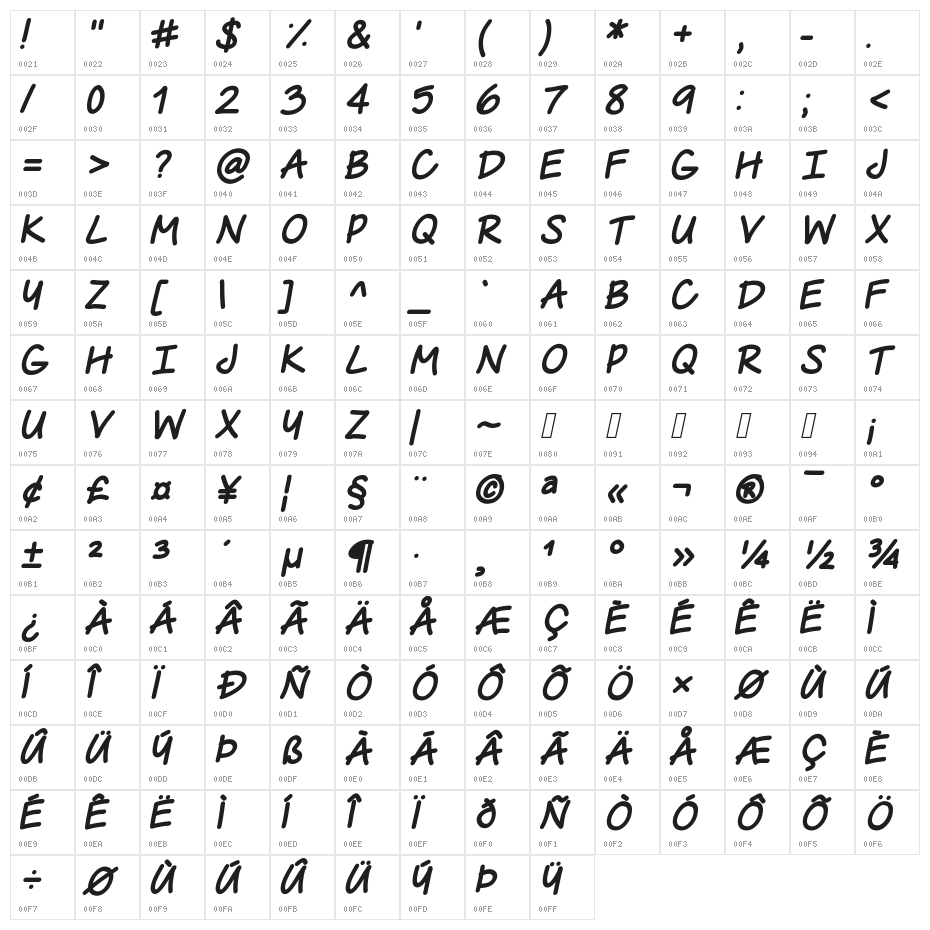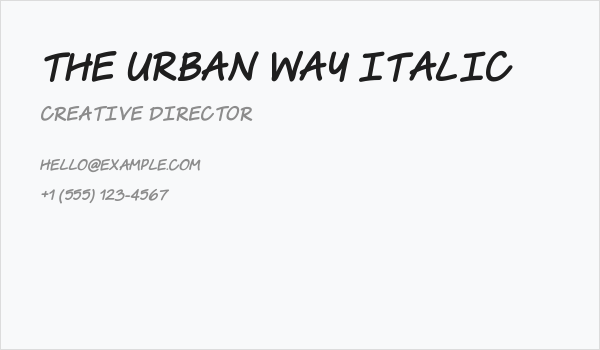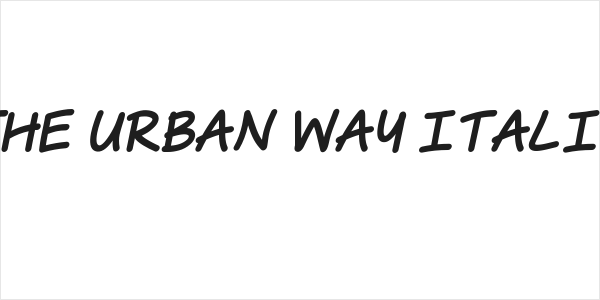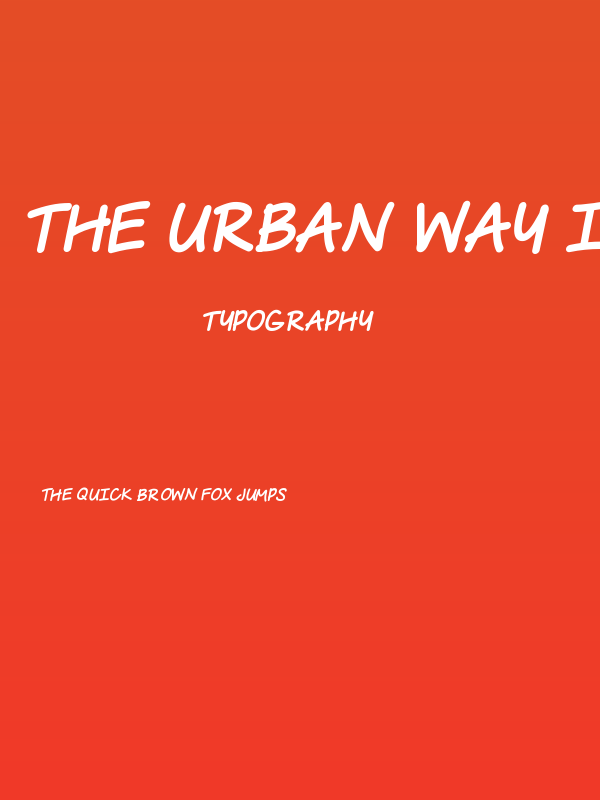
The Urban Way Italic Font
The Urban Way Italic Description
This font features a dynamic and energetic style with a handwritten appearance. The letters are slightly slanted, giving it an italicized look that adds a sense of movement and fluidity. The strokes are bold and consistent, with rounded edges that soften the overall appearance. This font maintains a casual and approachable feel, making it suitable for projects that require a personal touch. The numbers and special characters are designed to match the playful and informal style of the alphabet, ensuring a cohesive look across all text elements.
| Use Case | Logos, Headlines, Informal Text |
| Proposed Projects | Ideal for branding, social media graphics, greeting cards, and informal invitations. |